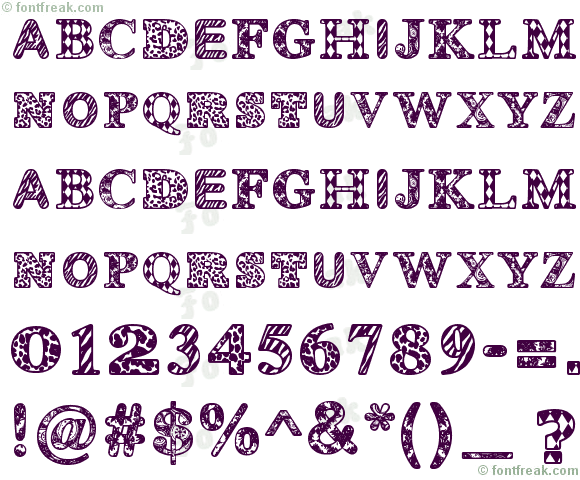
MONOVIRUS
About MONOVIRUS
MONOVIRUS by Denise Bentulan is a distinctive decorative font that blends playful creativity with an edgy vibe. Released in 2011 as freeware, this font stands out for its unique visual appeal and versatility. The design features a mix of thick and thin stroke weights, providing a sense of dynamism and movement. The characters are adorned with various textures and patterns, including stripes and animal prints, which add an element of fun and whimsy. The spacing is thoughtfully executed, ensuring readability while maintaining an artistic flair.
The MONOVIRUS font is perfect for a variety of applications. Its vibrant style makes it an excellent choice for eye-catching wedding invitations, where it can convey a sense of joy and celebration. It also shines in movie posters, giving a bold and unconventional look that captures attention. For small businesses, particularly in creative industries like fashion or art, MONOVIRUS can elevate restaurant menus or branding materials, creating a memorable impression on customers. Content creators will find it useful for social media graphics and promotional materials, where visual impact is key.
This font appeals to graphic designers, small business owners, and content creators alike, all seeking to inject personality and flair into their projects. The MONOVIRUS font free download offers an accessible opportunity for anyone looking to enhance their design toolkit with a standout typeface.
What sets MONOVIRUS apart is its ability to blend artistic expression with functionality. The combination of playful design elements and solid readability makes it a versatile tool for various creative endeavors. Whether you are designing for personal projects or professional needs, MONOVIRUS is sure to leave a lasting impression.